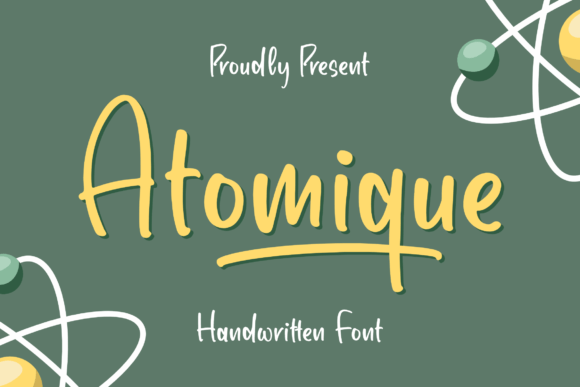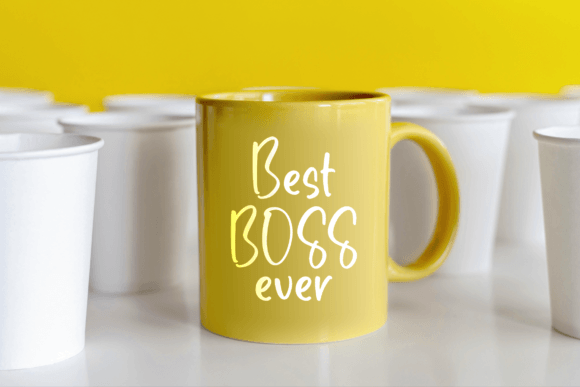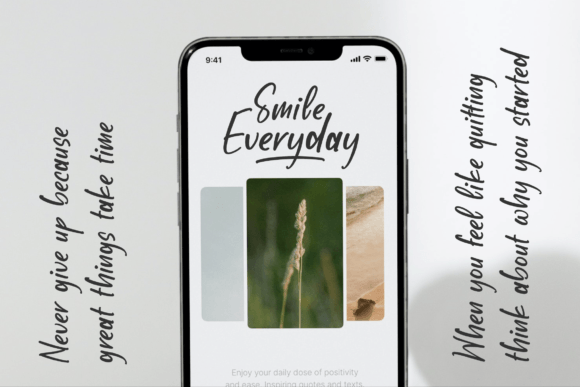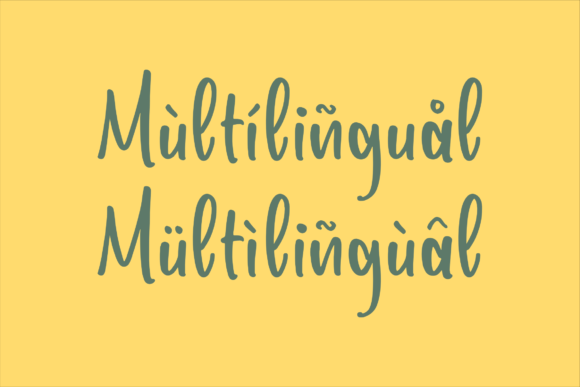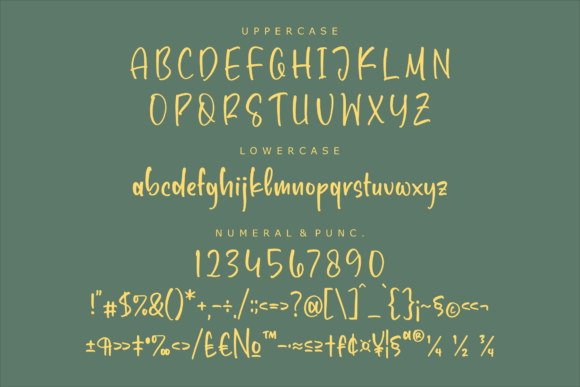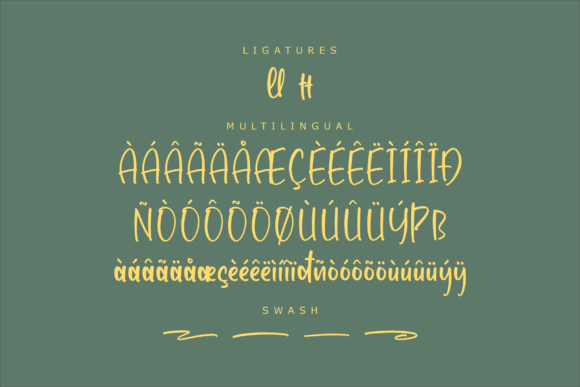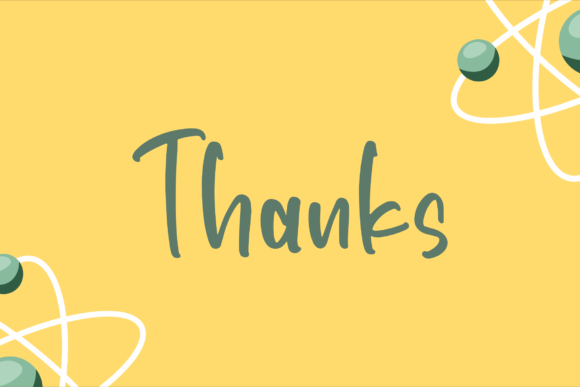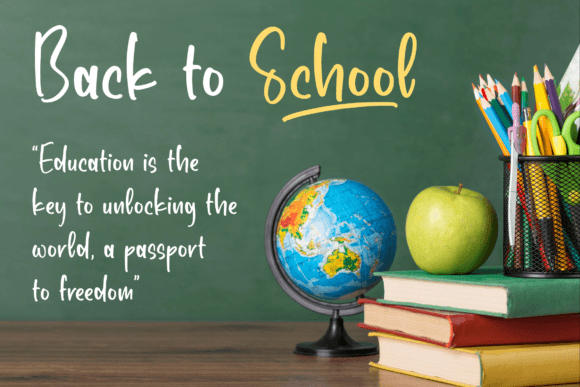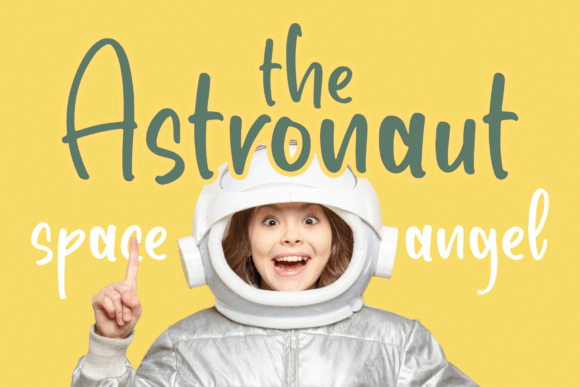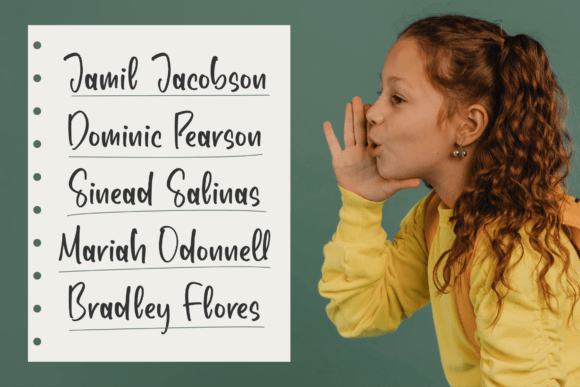
About Atomique Font
Atomique font is a stunning handwritten typeface that perfectly balances elegance and contemporary style. With its exquisite calligraphic roots and modern freshness, this font is designed to elevate your creative projects and become a favorite in your design toolkit. Whether you’re creating logos, invitations, branding materials, or social media content, Atomique adds a touch of sophistication and personality that makes every design shine.
Elegant Calligraphic Style with a Modern Twist
Atomique font takes inspiration from classic calligraphy, blending graceful strokes and flowing lines with a vibrant and fresh look. The result is a font that feels timeless yet up-to-date, making it versatile enough for both traditional and modern design needs. Its carefully crafted letterforms provide a natural and stylish feel, perfect for capturing attention while maintaining readability.
Perfect for Branding and Logo Design
This font shines in branding projects where elegance and uniqueness are crucial. Atomique’s handwritten style communicates authenticity and personality, making it ideal for businesses and creatives who want to stand out. Use Atomique font to design logos, business cards, packaging, or any branding material that needs a handcrafted yet polished look.
Ideal for Invitations and Special Occasions
Atomique font brings a classy and fun vibe to wedding invitations, save-the-date cards, thank you notes, and other special event materials. Its smooth curves and delicate details add warmth and charm, creating a memorable impression for your guests and recipients. It’s perfect for designers aiming to deliver elegance and approachability simultaneously.
Versatile for Various Creative Uses
Beyond weddings and branding, Atomique font adapts well to social media graphics, quotes, posters, apparel designs, and more. Its lively yet refined character makes it a versatile choice for any project that needs a handwritten touch with flair.
Why Choose Atomique Font?
Atomique font stands out with its blend of classic calligraphic elegance and fresh, modern appeal. It is a go-to choice for designers seeking a unique script that can add both beauty and personality to their work. With Atomique, your creative ideas reach new heights, presenting a polished and engaging look.